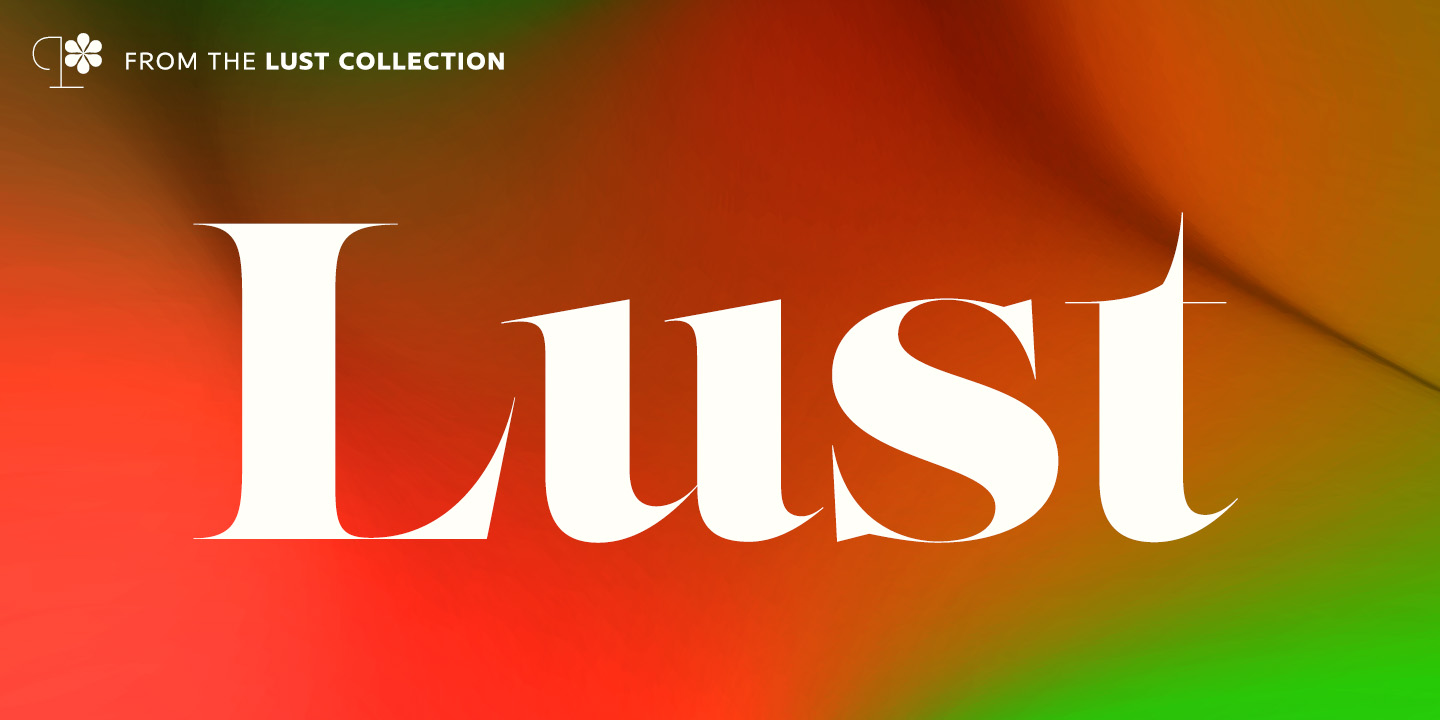
Introducing Lust Font Free Download – a bold, high-contrast didone typeface that exudes luxury and sophistication. With its dramatic stroke variation and razor-sharp serifs, this font commands attention while maintaining refined elegance for high-end branding and editorial projects.
Why Lust Font Stands Out
1. Haute Typography Perfected
Extreme stroke contrast for maximum visual impact
Delicate hairline serifs with precise terminals
Inspired by fashion magazine mastheads
2. Luxury Design Applications
Masterfully crafted for:
Fashion editorials & lookbooks
Jewelry branding & packaging
Champagne labels & luxury goods
5-star hospitality branding
Theater posters & cultural events
3. Premium Typographic Features
Multiple optical sizes
Contextual alternates for fluid letter combinations
800+ glyphs including discretionary ligatures
Perfect for foil stamping and embossing
Professional Implementation
Lust Font Free Download excels in:
Fashion advertising campaigns
Perfume bottle labeling
High-end business cards
Magazine headline typography
Luxury real estate branding
Designer Secret: Use with generous letter spacing for ultra-elegant headlines.
Includes swash capitals for decorative initials
Special ornaments for editorial flourishes
Perfect for Vogue-inspired layouts
Pro Pairing: Combine with a neutral sans-serif (like Neue Haas Grotesk) for balanced luxury compositions.
Why It's Iconic: Lust captures the essence of European fashion typography, delivering that coveted "runway-ready" aesthetic for brands that want to make a statement. Its razor-sharp details print beautifully on premium papers and look stunning in digital applications.
Expert Tip: Use negative tracking (-20 to -40) for tight, impactful headlines in fashion layouts. The font's extreme contrast ensures readability even at tight spacing.